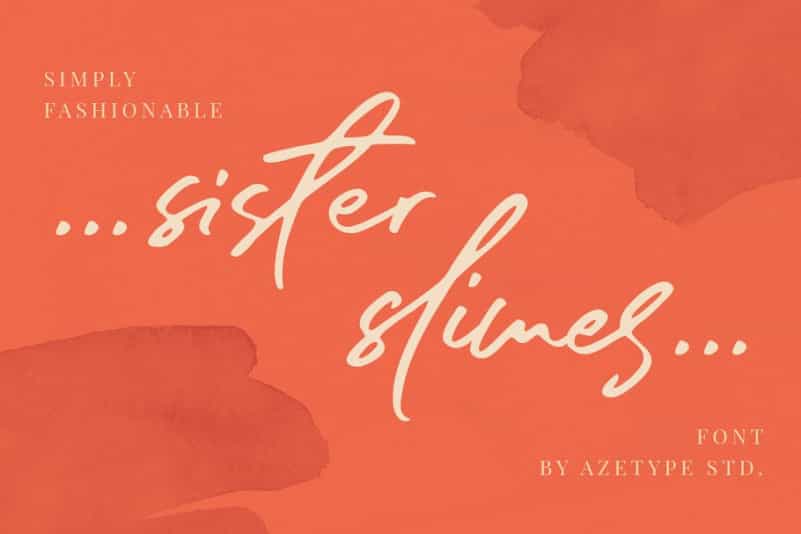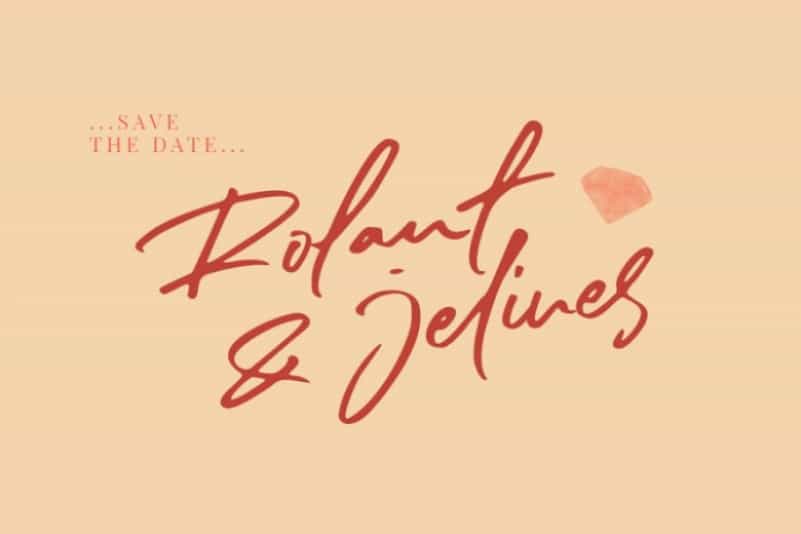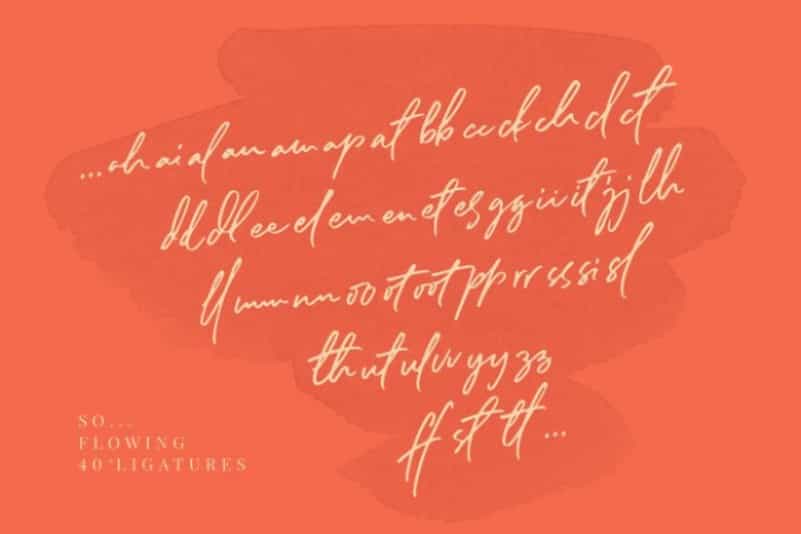
Sister Slimes, a script font by manufacturer Azetype Std features alternate swash characters and ligatures that contain cursive details. Delightfully flowing strokes adorn the letters rendering various creations like business cards, invitations, collection headings, company logos, quotes or social media packets in stunning fashion.